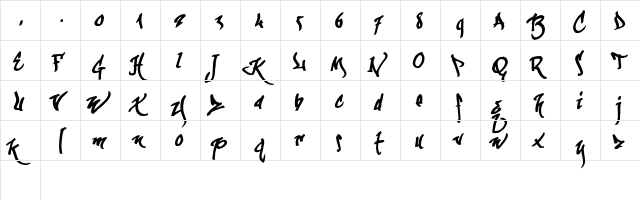
kaliGraff Regular
Design Context for kaliGraff Typeface
kaliGraff is a composed and adaptable typeface that performs quietly and consistently across a wide range of design contexts.